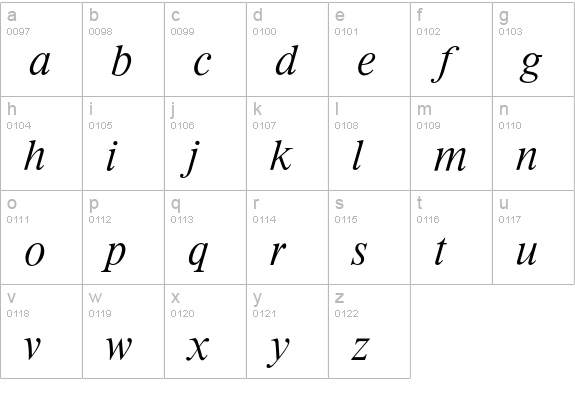
Riccione-XlightIta is a captivating and elegant font that effortlessly combines modern sophistication with timeless charm. Its sleek and slender letterforms exude a sense of refinement, making it the perfect choice for projects that require a touch of luxury and elegance. This font boasts a delicate balance between thin strokes and subtle curves, creating a harmonious and visually pleasing aesthetic. Its clean and minimalistic design allows for clear legibility, ensuring that your message is conveyed with clarity and style. Riccione-XlightIta is not only visually stunning, but it also offers versatility in its usage. Whether you are designing a logo, creating a captivating headline, or crafting a sophisticated invitation, this font is sure to elevate your project to new heights. One of the most remarkable aspects of Riccione-XlightIta is that it is freely available to download at FontsMarket.com. This means that you can effortlessly access this stunning font without any financial burden. Its availability for free download allows designers, creatives, and enthusiasts alike to explore and experiment with this exquisite typeface without any limitations. With Riccione-XlightIta, you can elevate your designs, captivate your audience, and make a lasting impression. So why wait? Download this free font today and unlock a world of possibilities for your creative endeavors.